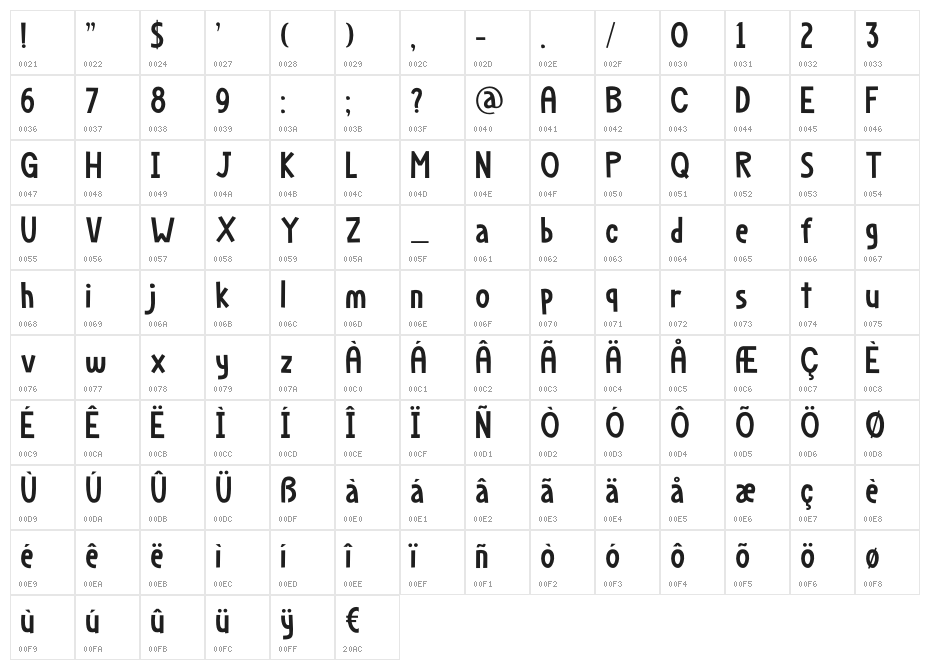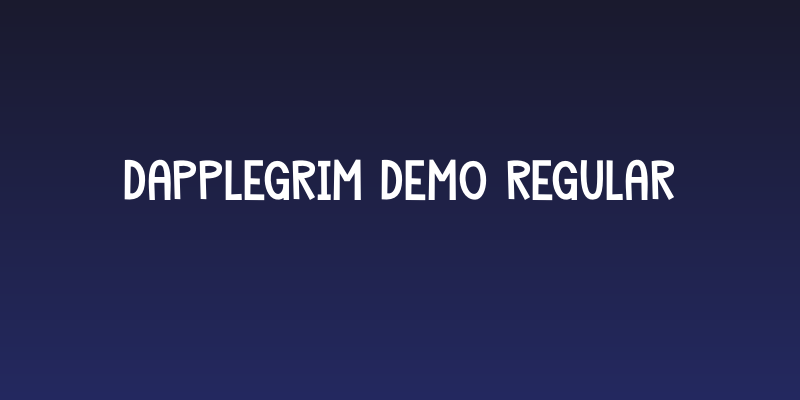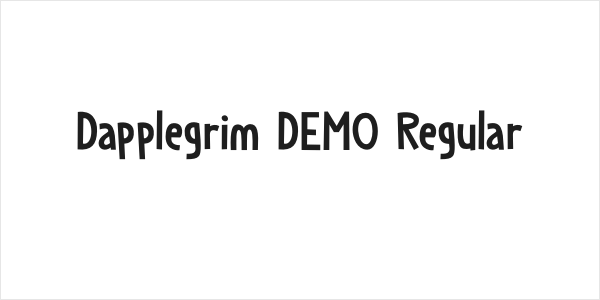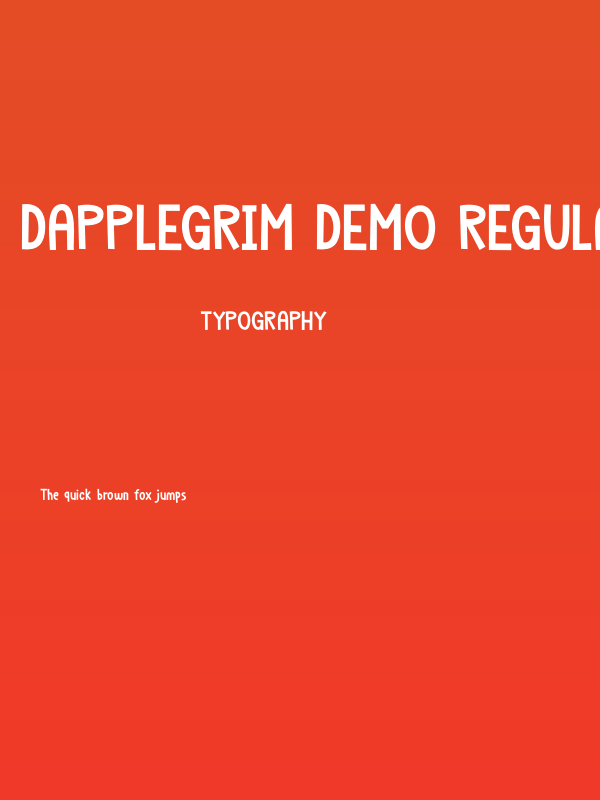
Dapplegrim DEMO Regular Font
Dapplegrim DEMO Regular Description
This font features a playful and whimsical design, characterized by its bold and rounded letterforms. The uppercase and lowercase letters maintain a consistent style, with slightly exaggerated curves and a friendly appearance. The inclusion of horse silhouettes as special characters adds a unique and decorative touch, making it stand out for creative projects. The numbers are clear and bold, matching the overall style of the alphabet. This font is ideal for projects that require a fun and engaging aesthetic, such as children's books, playful branding, or themed event materials.
| Proposed Projects | Children's books, playful branding, themed event materials, creative posters. |